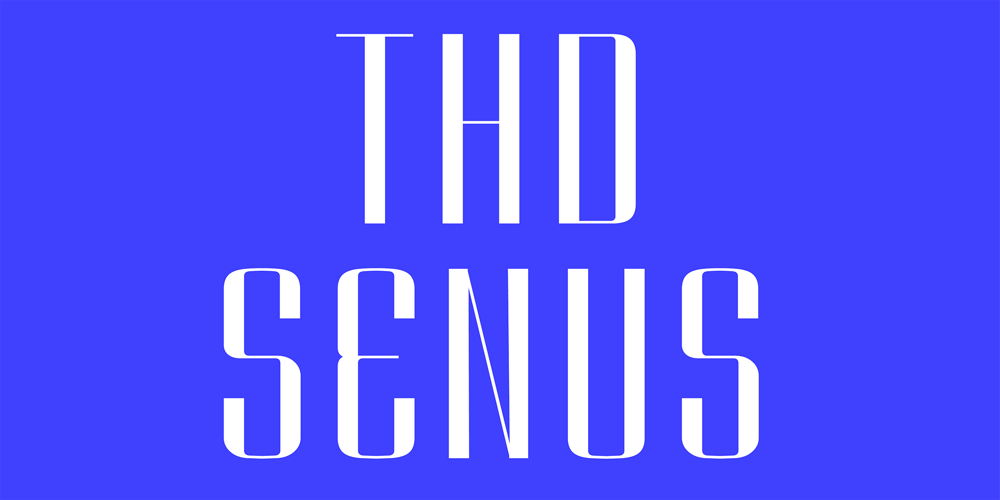
THD Senus
THD Senus font
THD Senus Font Family was designed by Tim Hutchinson and published by Tim Hutchinson Design. THD Senus contains 5 styles and family package options. THD Senus is a modern, high contrast font that expresses a sophisticated and contemporary feeling. The font comes in ‘Roman’ and ‘Bold’ styles plus the softer versions of ‘Roman-Curve’ and ‘Bold-Curve’ – there is also a shadow style available as ‘Roman-Shaded’. The font is perfect for range of uses such as editorial, brand messages, packaging, promotions, campaigns etc.